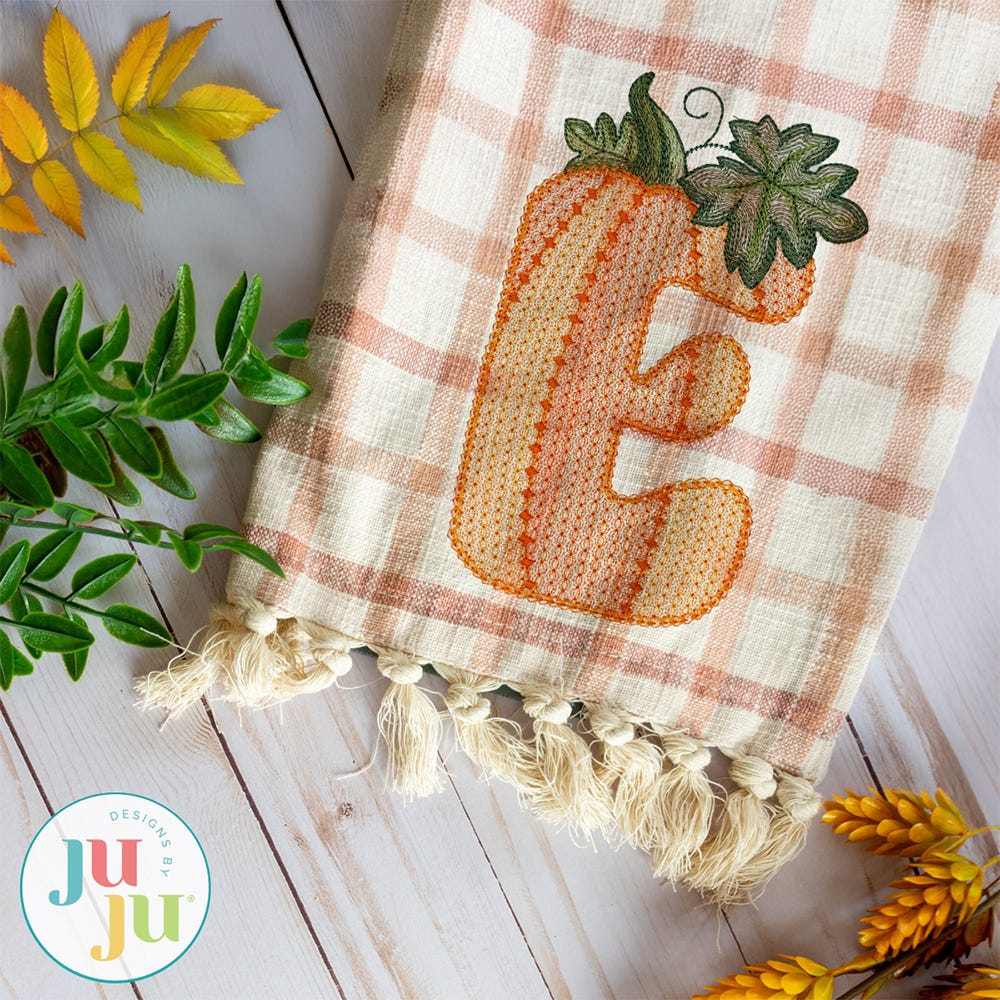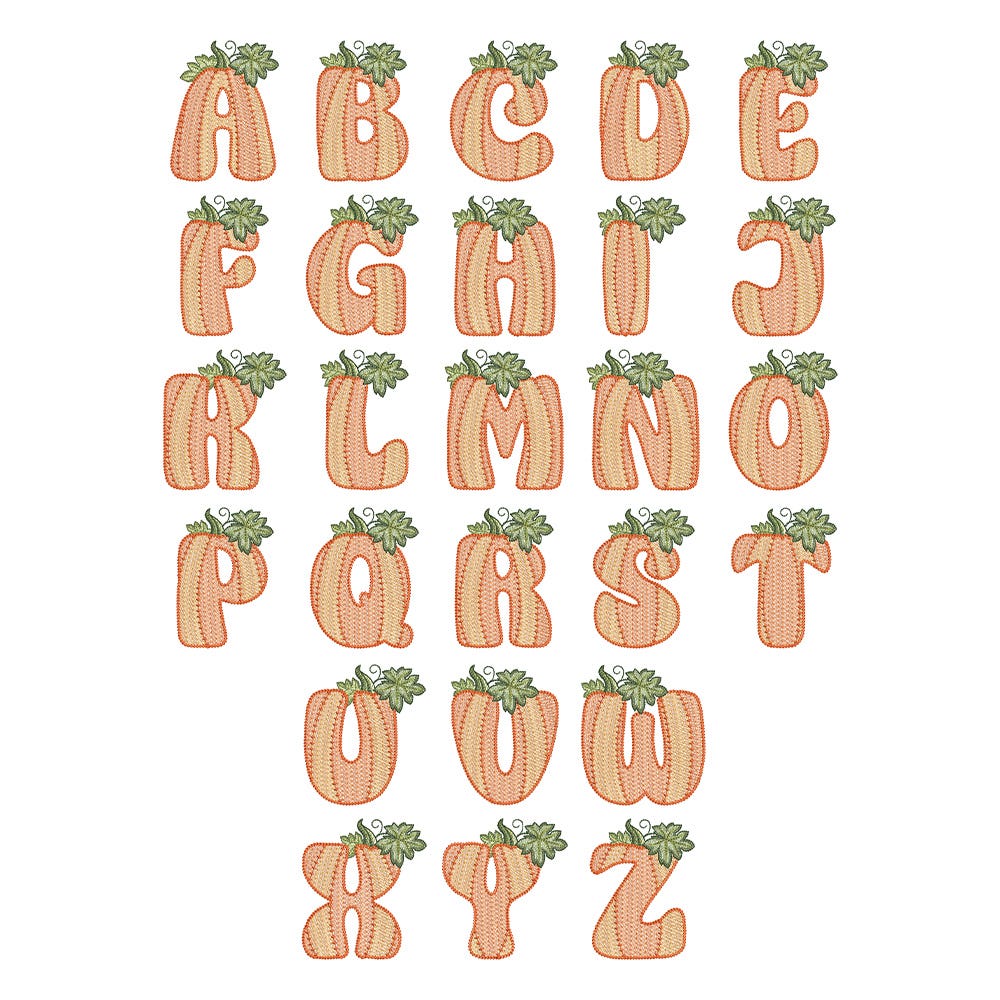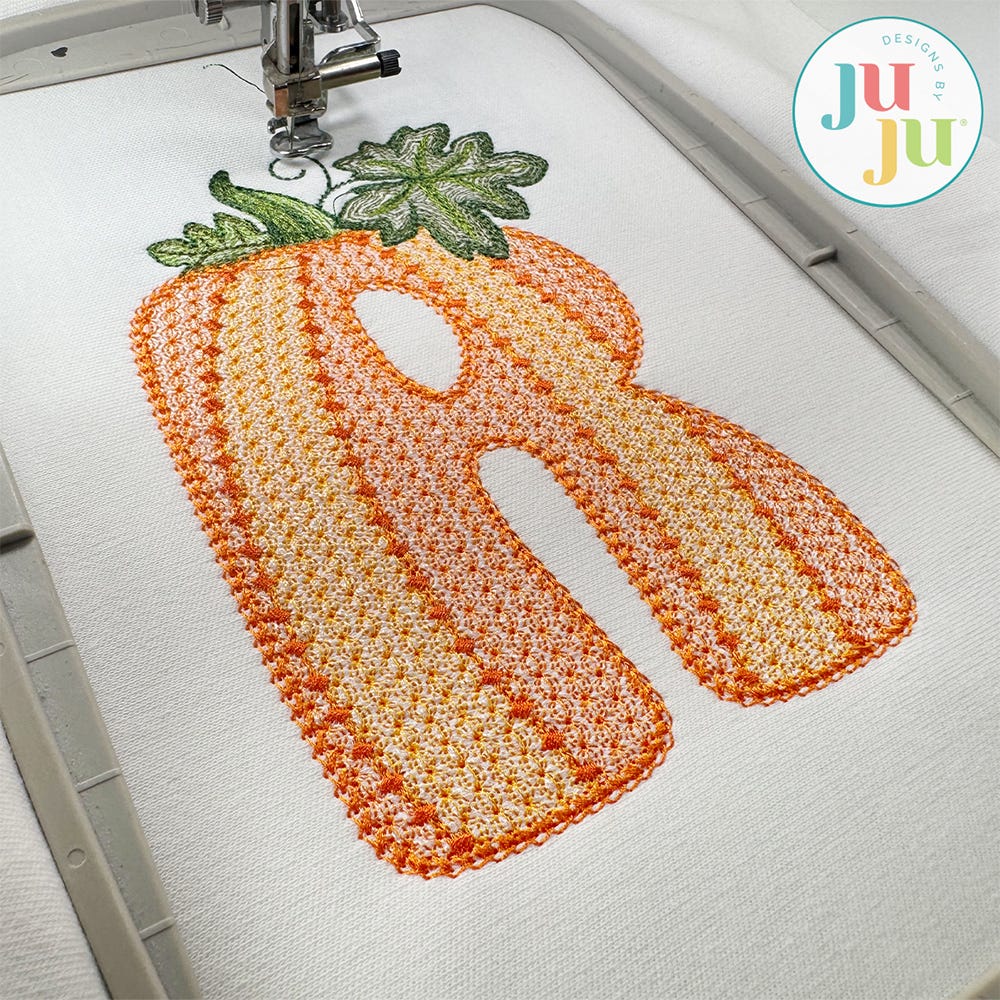
Pumpkin Motif Filled Monogram Embroidery Font
Add a festive fall flair to your projects with our Pumpkin Motif Monogram. This embroidery-only monogram features decorative motif fill stitching that forms tiny pumpkin shapes to create each letter, with leaves and stems created using multiple color layers of lighter density fill to create a blended, variegated, textured look.
Because the fill has a lighter density, some fabrics may show through the sheer stitching. Light-colored solid fabrics are recommended. We do NOT recommend resizing designs with motif or blended fill elements in software.